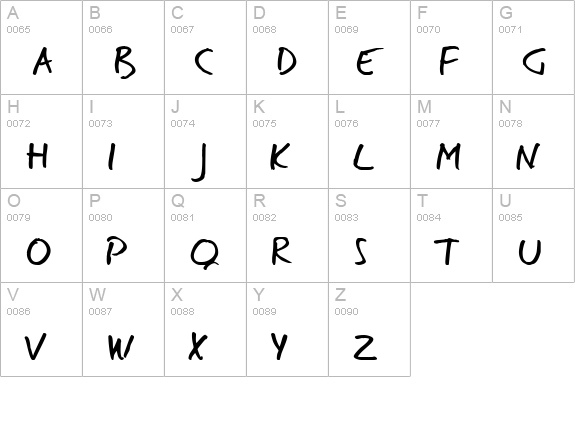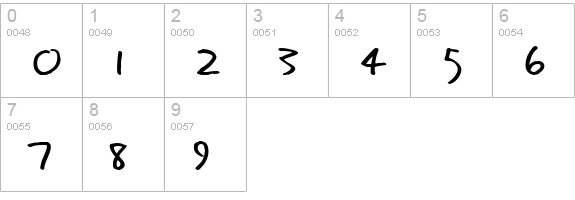
Eager Naturalist Font Details
Eager Naturalist font is a truly captivating typeface that embodies the essence of nature and the adventurous spirit of exploration. With its beautifully intricate and hand-drawn letterforms, this font brings a sense of organic beauty to any design project. Inspired by the wonders of the natural world, Eager Naturalist font is perfect for those who appreciate the beauty and diversity of flora and fauna. Whether you are working on a wildlife documentary, a nature-inspired branding project, or simply want to add a touch of whimsy to your designs, this font will effortlessly transport you to the enchanting world of the outdoors. What makes Eager Naturalist font even more remarkable is that it is freely available to download at FontsMarket.com. With just a few clicks, you can bring the beauty and charm of this font into your creative endeavors, without any cost or restrictions. This font truly celebrates the spirit of creativity and accessibility, allowing designers and enthusiasts alike to freely express their love for nature through their work. Eager Naturalist font is a versatile and dynamic typeface that offers a wide range of stylistic options. From delicate thin strokes to bold and expressive lettering, this font allows you to experiment and create unique designs that reflect your own personal style. Its extensive character set includes a variety of ligatures, alternates, and swashes, giving you endless possibilities to customize and enhance your typographic compositions. So, whether you are a seasoned designer looking to add a touch of natural beauty to your projects or a nature enthusiast eager to bring your passion to life, Eager Naturalist font is the perfect choice. Embrace the freedom of creativity and download this extraordinary font today at FontsMarket.com!